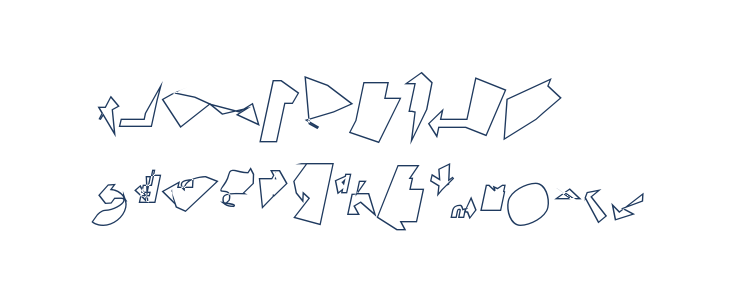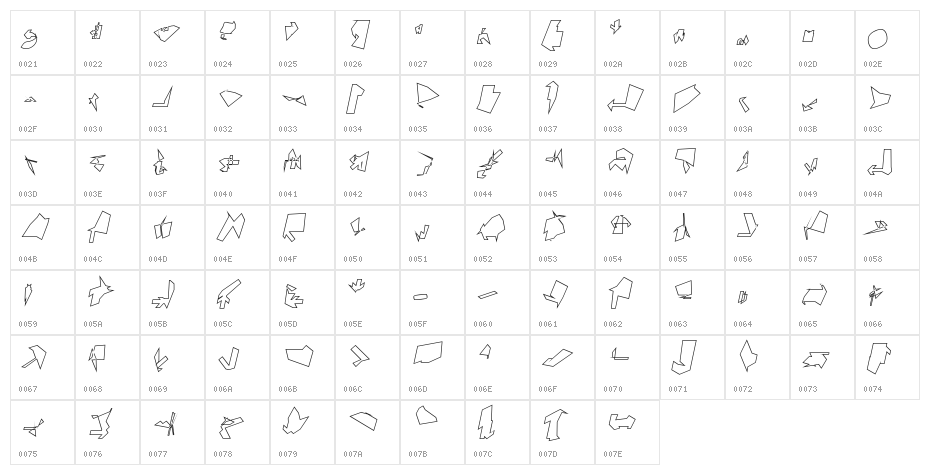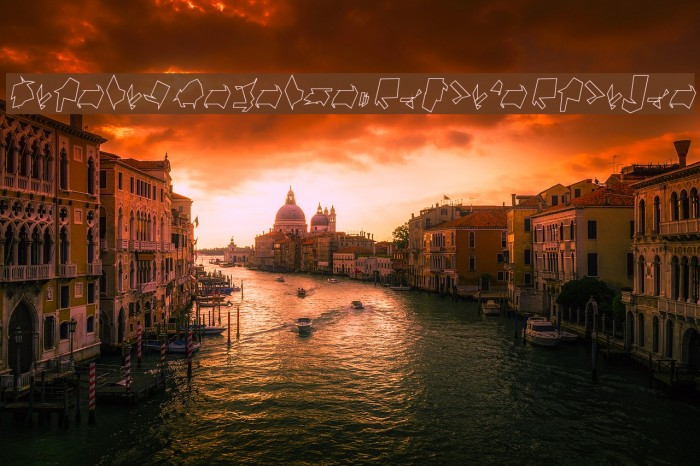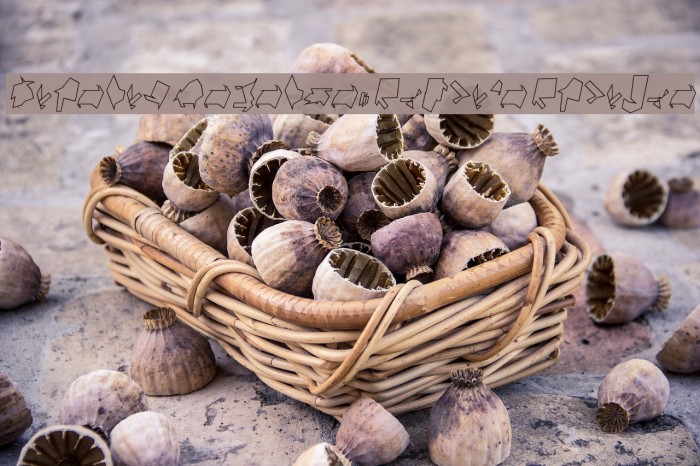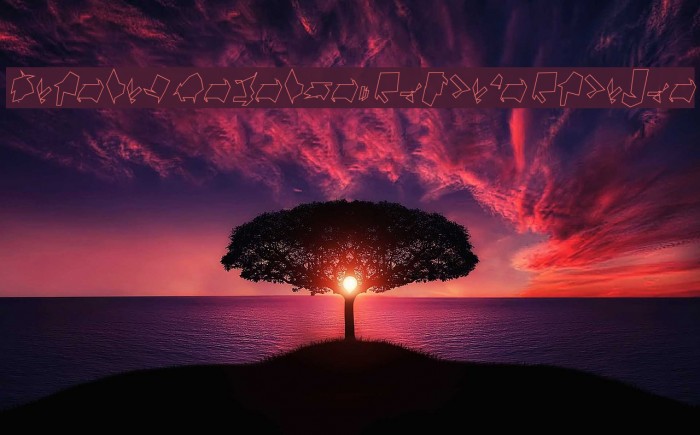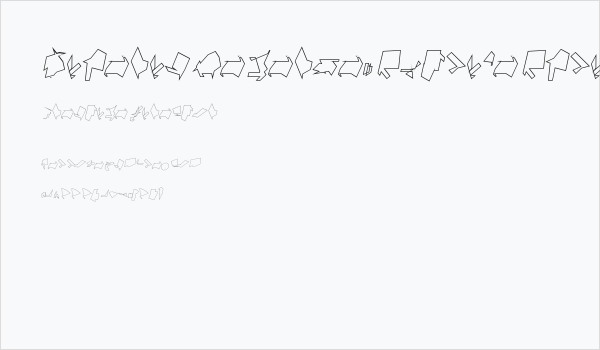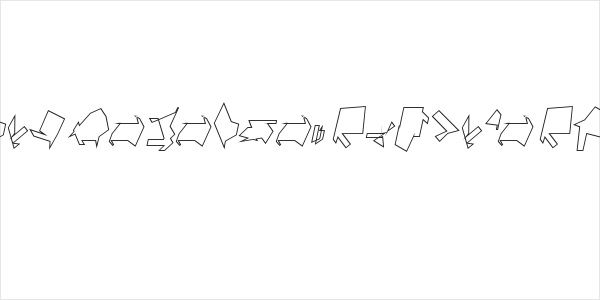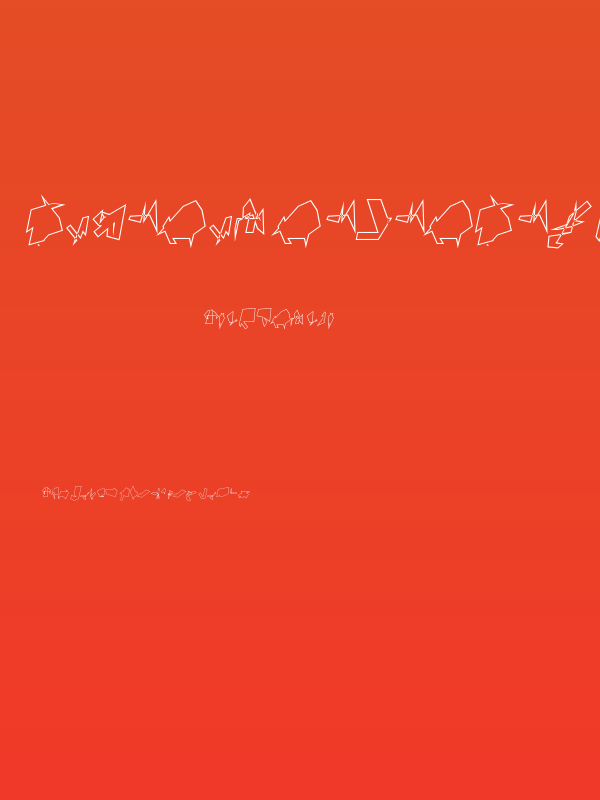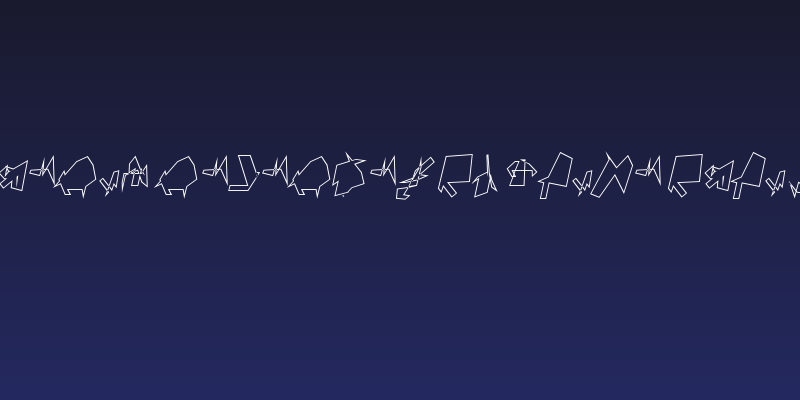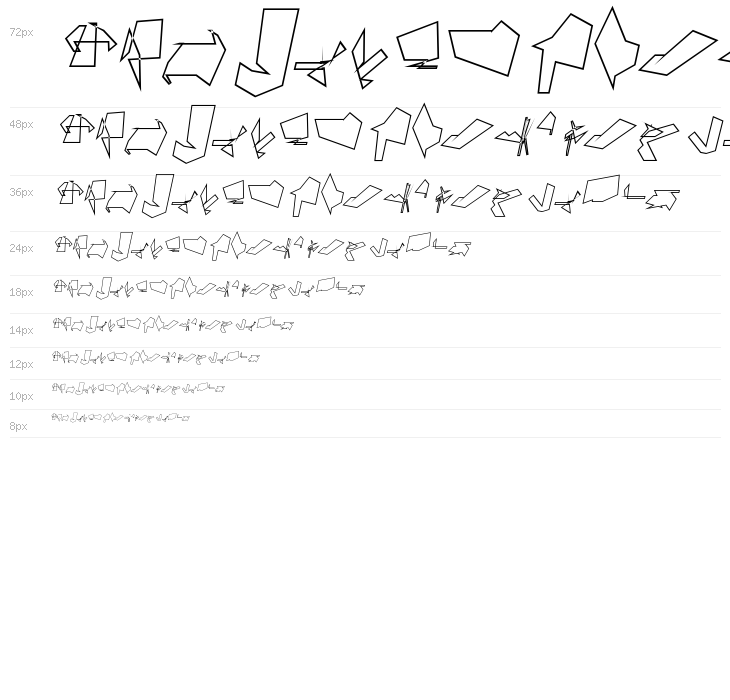
Siberia Reversed Outline Oblique Font
Siberia Reversed Outline Oblique Description
This font features a highly abstract and geometric design, characterized by sharp angles and irregular shapes. Each character is outlined, giving it a hollow appearance, and the oblique orientation adds a dynamic, forward-leaning effect. The font's unconventional style makes it stand out, with each letterform resembling a unique piece of abstract art. The reversed and outlined nature of the characters contributes to a sense of depth and complexity, making it suitable for creative and artistic projects. Its distinctiveness is ideal for capturing attention and making bold statements.
| Overall Style | Modern, Abstract |
| Use Case | Logos, Headlines, Artistic displays |
| Proposed Projects | Ideal for modern art projects, album covers, avant-garde posters, and experimental branding. |